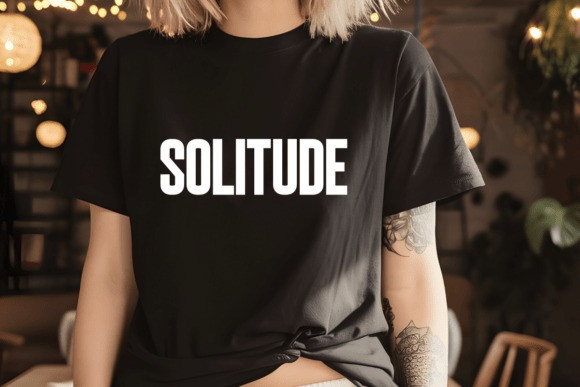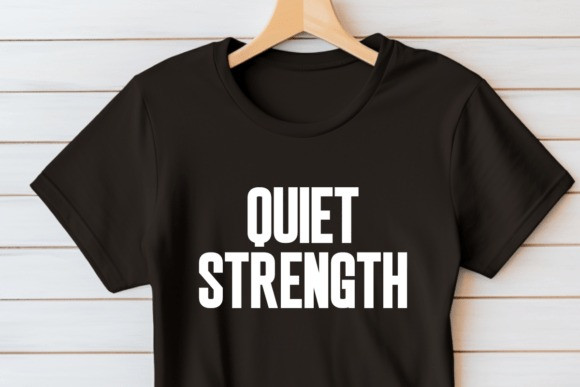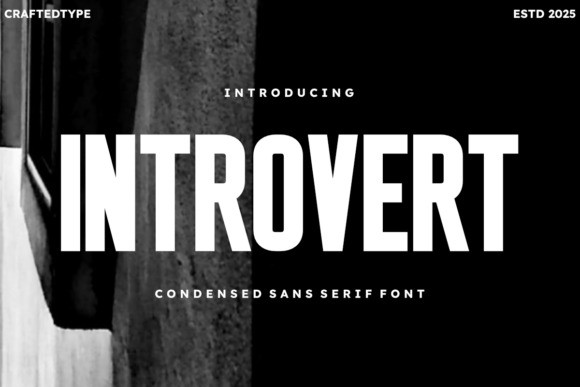
Introvert Sans Serif Font
Introvert Sans Serif Font is a sleek, modern, and powerful condensed sans serif typeface designed for high-impact communication. Despite its name, this font demands attention with its bold, uniform strokes and tight spacing, offering an aesthetic that is both contemporary and highly readable. The introvert font embodies confident simplicity and is a versatile asset for any digital or physical project.
Its clean lines and robust structure make it an outstanding choice for graphic design professionals, excelling in creating striking logos, impactful website headers, modern branding packages, and captivating social media graphics. For the Print on Demand (POD) industry, Introvert’s thick, condensed form is perfectly optimized. It ensures maximum legibility and excellent print quality on merchandise such as custom apparel, tote bags, posters, and phone cases, allowing designs to pop off the surface.
Crafters will also appreciate its straightforward geometry, making it easy to cut and weed using machines like Cricut and Silhouette for vinyl and heat transfer projects.